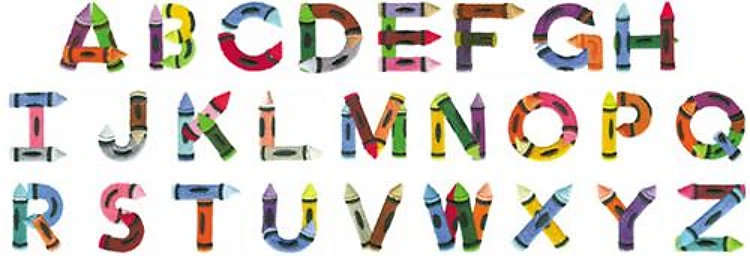
Great Notions is happy to present CRAYON ALPHABET Embrilliance Embroidery Font - Colorful Playful Lettering - BX font machine embroidery font which has Colorful and playful machine embroidery font inspired by crayons, each letter flaunts a unique hue and texture. Ideal for adding a fun twist to children’s apparel and accessories. Available in BX font and Embrilliance. included. If you would like to view more embroidery fonts and alphabets please search our embroidery fonts page.
CRAYON ALPHABET Embrilliance Embroidery Font - Colorful Playful Lettering - BX font